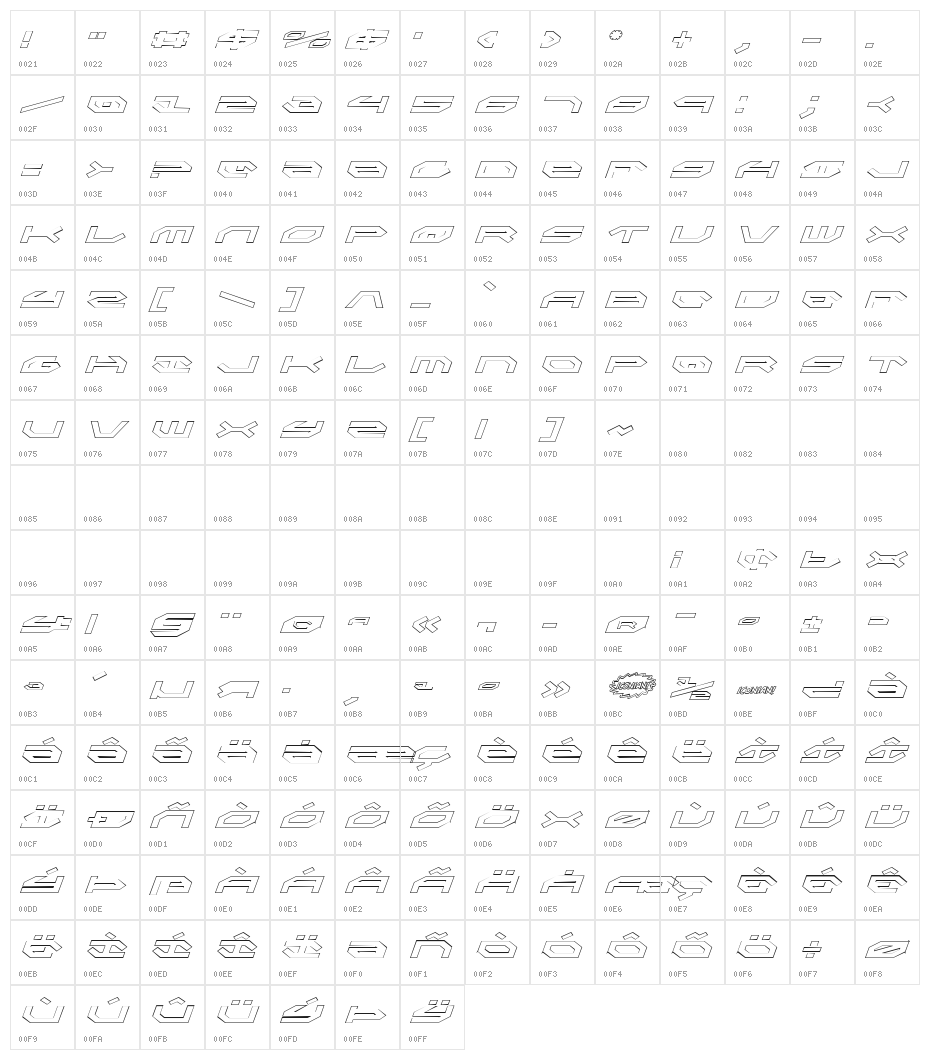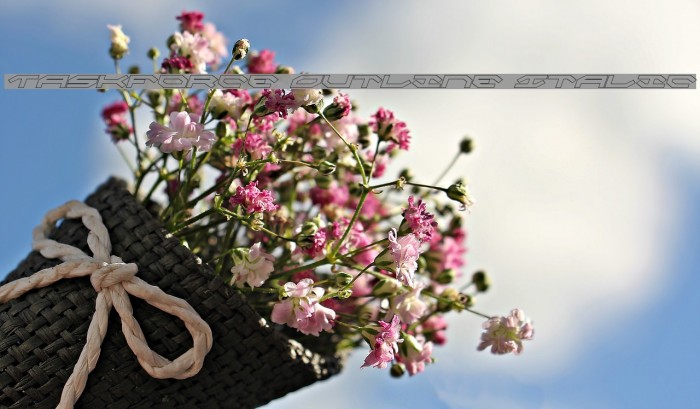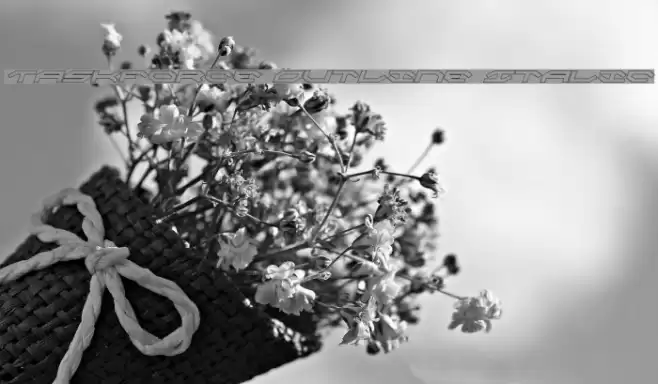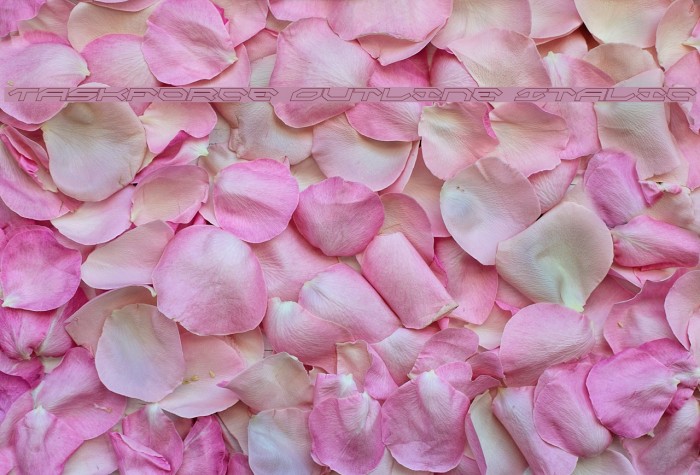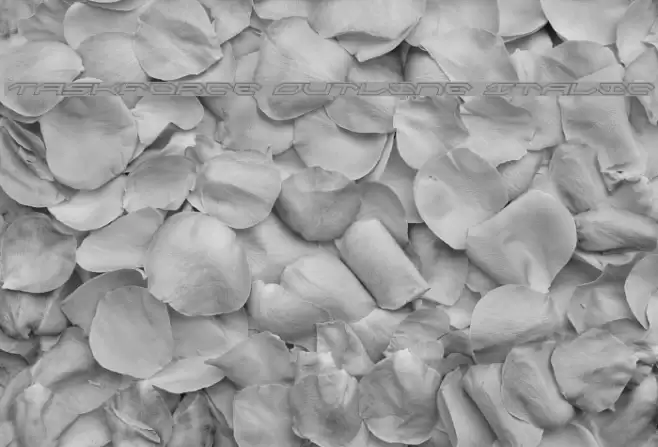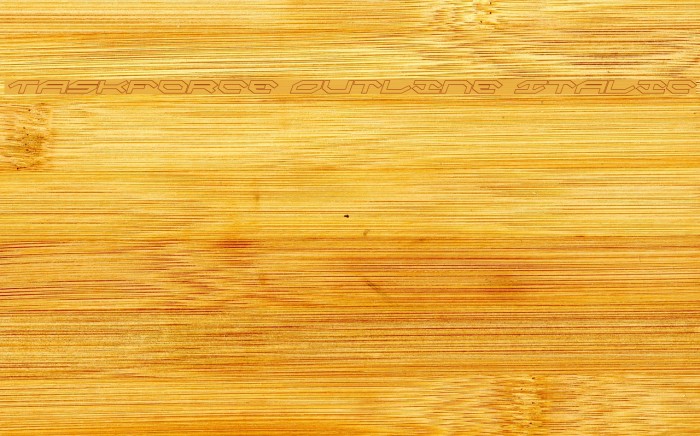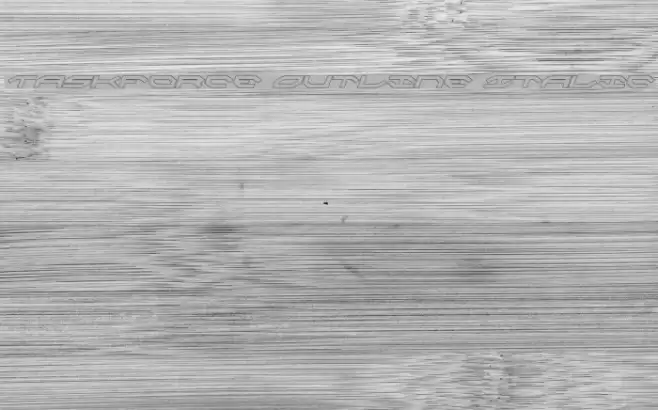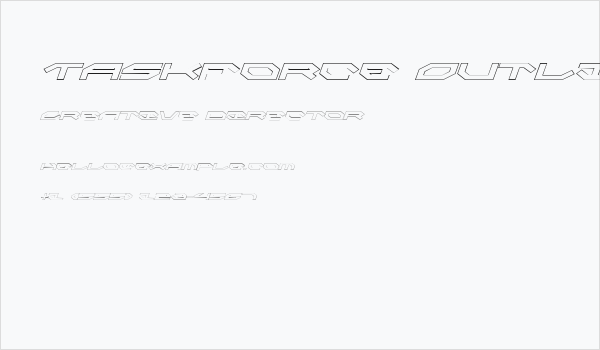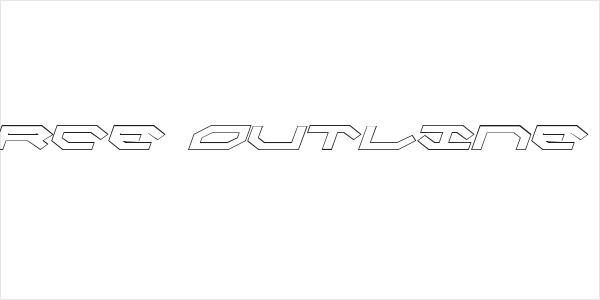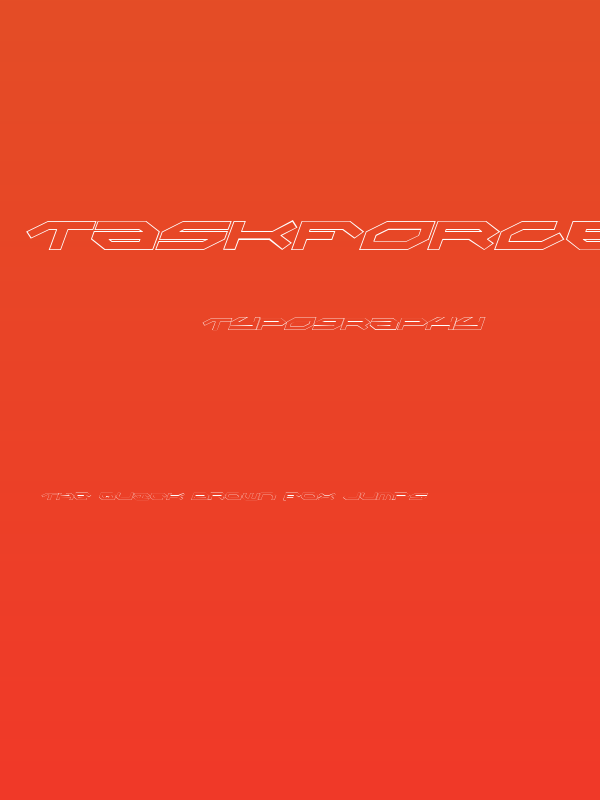
Taskforce Outline Italic Font
Taskforce Outline Italic Description
This font features a futuristic and angular design with a distinct outline style. The characters are italicized, giving them a dynamic and forward-leaning appearance. The geometric shapes and sharp edges create a sense of movement and speed, making it ideal for modern and tech-oriented projects. The uppercase and lowercase letters maintain a consistent style, while the numbers and special characters complement the overall design. The outline effect adds a layer of complexity, enhancing its visual appeal.
| Proposed Projects | Ideal for sci-fi themed designs, tech branding, video game titles, and futuristic posters. |